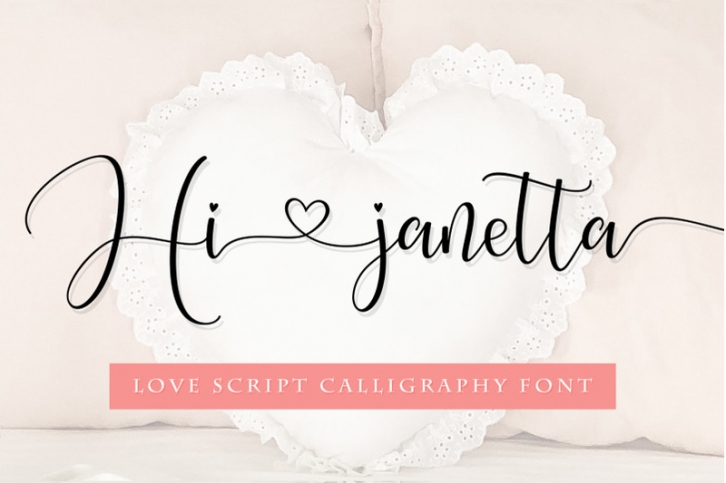
Hi janetta Script - is a new calligraphy font, which is elegant and soft, attractive, cute with a heart that can be connected.perfect for your design and craft projects, including greeting cards,
product labels, invitations, logos, and so much more